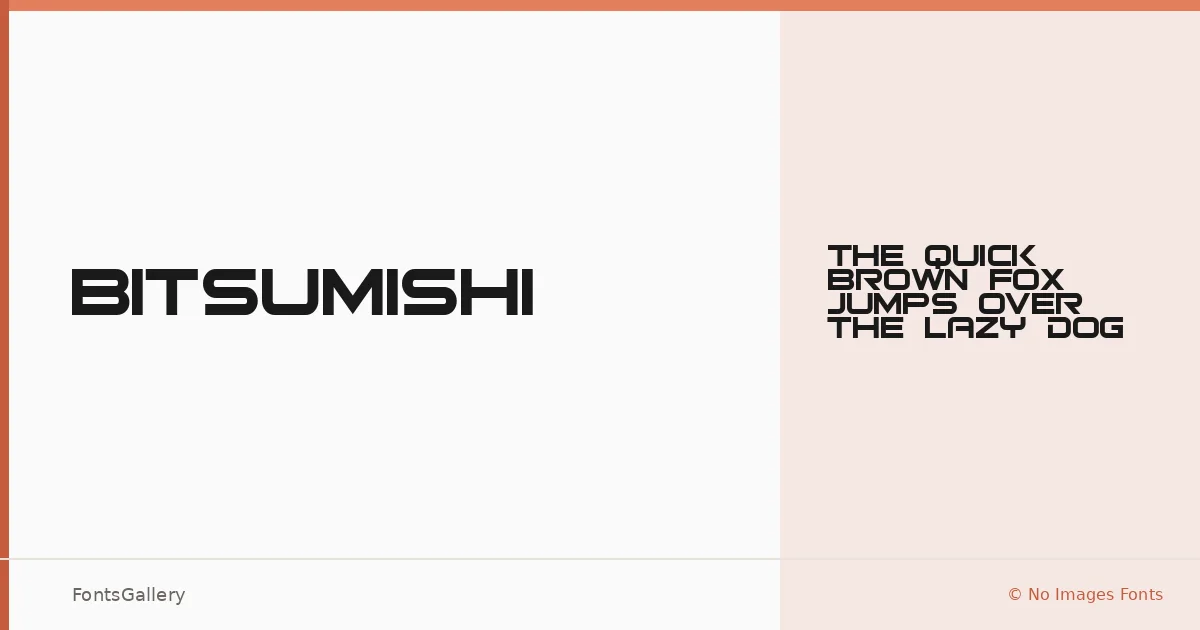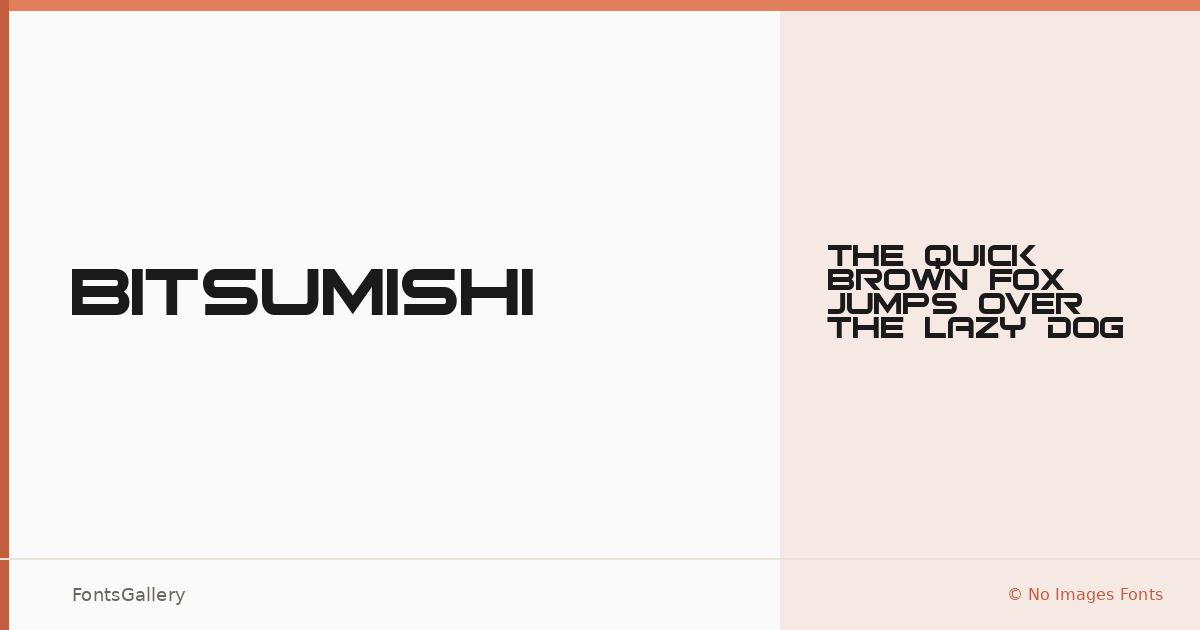
About Bitsumishi Font
There is a deliberate tension in these letterforms — something angular and constructed, as if each character was assembled from structural components rather than drawn with a loose hand. Released under copyright by Levi and published by No Images Fonts, Bitsumishi arrives as a single Regular weight, a focused offering that asks nothing more than to be set large and seen clearly.
This is a display face with a futuristic and modern edge, sitting comfortably in the bold end of the typographic spectrum without sacrificing a professional composure. The single TTF cut keeps things clean — no Light, no Italic, just one confident voice that rewards decisive typographic choices. The forms carry a mechanical quality that reads as forward-looking without tipping into novelty.
It earns its place in headline settings, branding systems, poster work, logo lockups, and apparel graphics where a strong, distinctive silhouette matters. For contrast and balance, the listed pairing companions — Helvetica, Canela, Asap, ABC Arizona, and Josefin Sans — each offer their own neutrality or elegance to ground the display weight of this face when body text is needed alongside it.